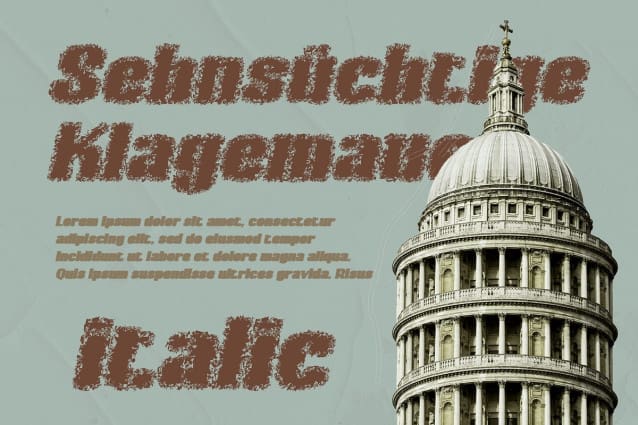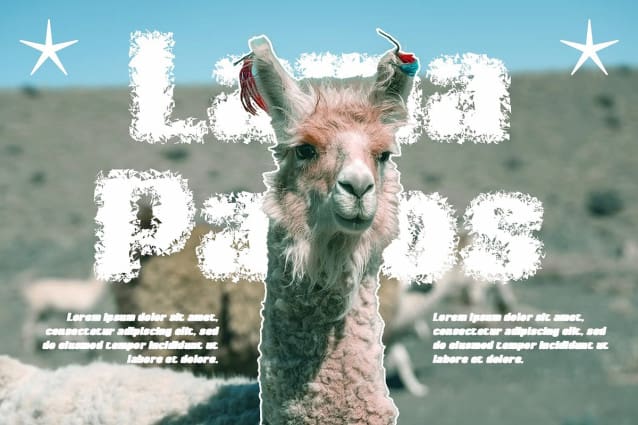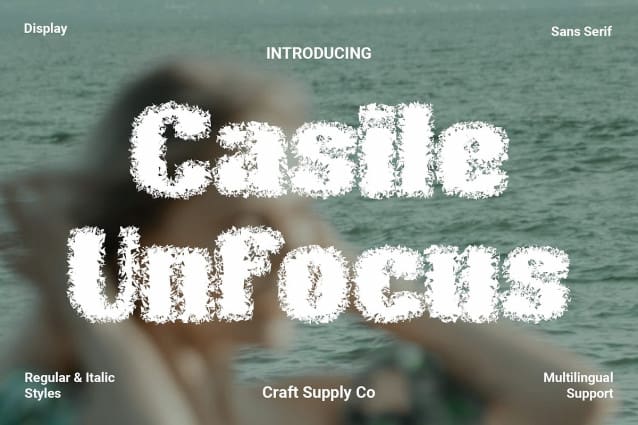
Casile Unfocus Font
Casile Unfocus Font: Redefining Display Typography. Bold and Unfocused Casile Unfocus presents a bold sans-serif display font with a unique unfocused effect. Its blurred appearance adds intrigue and contemporary flair to any design project.
Perfect for Contemporary Display Tailored for modern display needs, This font excels in contemporary and experimental contexts. Its blurred shapes offer a fresh perspective, making it ideal for cutting-edge designs.
Versatile and Experimental With its unfocused effect, This font opens up a world of creative possibilities. Whether used in branding, digital art, or experimental layouts, this font adds a touch of avant-garde sophistication.
Unleash Your Creativity This font invites designers to break free from conventional typography. Embrace its blurred shapes and unleash your creativity to create visually striking and experimental designs.
Boldly Blurred This font redefines display typography with its bold sans-serif style and unfocused effect. Designed for contemporary and experimental projects, it offers versatility and creativity, allowing designers to push the boundaries of visual expression.